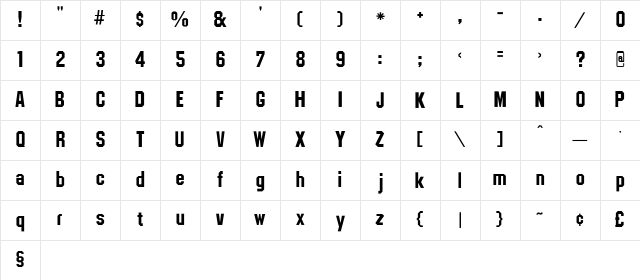
CSD-Block-Bold Regular Free Font
CSD-Block-Bold Regular
Design Context for CSD-Block-Bold
CSD-Block-Bold is a composed and adaptable typeface that performs quietly and consistently across a wide range of design contexts. Its bold stroke weight gives it real presence on the page.